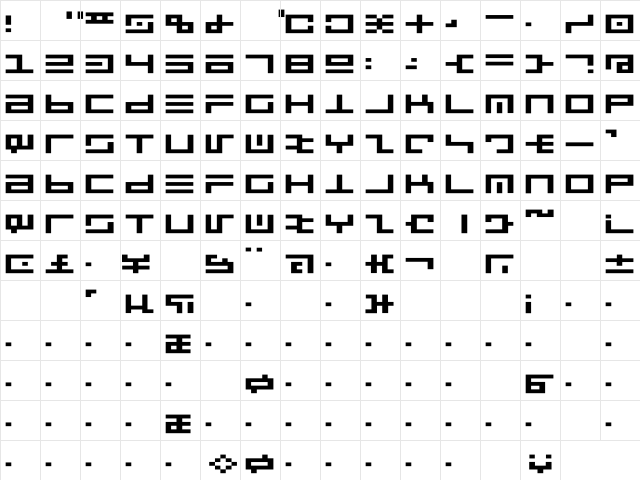
Rsultralin Ex Regular
Design Context for Rsultralin Ex
Rsultralin Ex is a composed and adaptable typeface that performs quietly and consistently across a wide range of design contexts.